2024 has been an extremely productive and vital yr for TypeType. We launched new fonts and up to date present ones, obtained awards, made our web site extra user-friendly, and shared information about font design. In quick, this yr introduced us quite a few modifications, and now it’s time to look again, replicate on our achievements, and description plans for the long run.
Let’s sum up the yr!
Fonts of the Yr
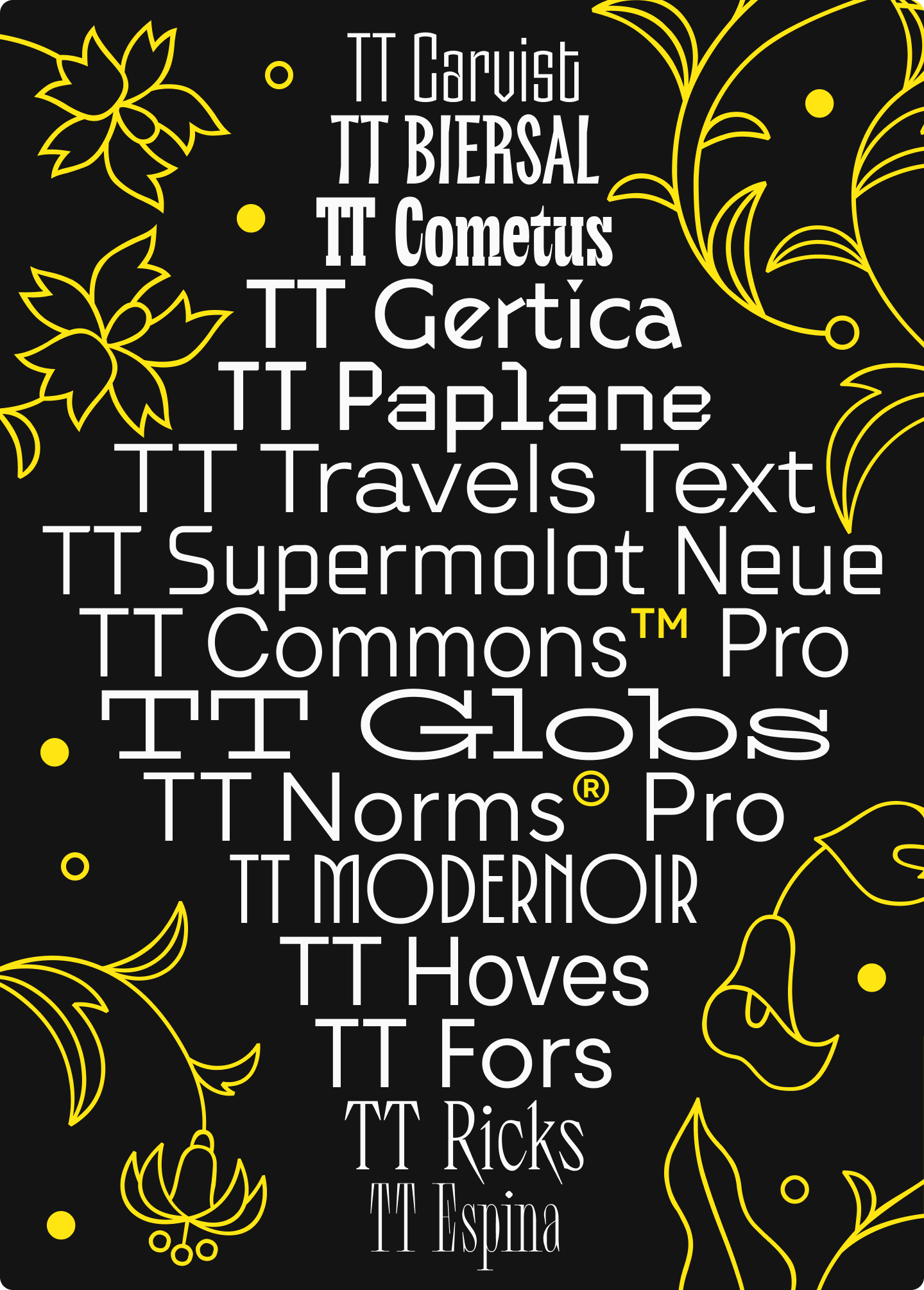
New Fonts
- TT Carvist is a fashionable experimental sans serif with additional slender proportions and a gothic temper
- TT Travels Textual content is a fashionable and versatile geometric sans serif with broad proportions
- TT Paplane is an experimental squared-looking show sans serif that appears prefer it’s folded from a paper strip
- TT Modernoir is an experimental show sans serif with dynamic proportions, impressed by Twentieth-century French typography and noir movie aesthetics
- TT Biersal is an experimental show sans serif with a free-spirited, playful, and adventurous nature, impressed by German posters from the Thirties
- TT Gertika is an experimental geometric sans serif with a dynamic character and a dancing rhythm
Up to date Fonts
- TT Supermolot Neue is an superior, modular sans serif with a futuristic temper. To make the font much more purposeful and versatile, we expanded the character set, added extra supported languages and OpenType options
- TT Commons™ Professional is a geometric sans serif, certainly one of the studio’s hottest fonts. With the replace, we expanded the character set, added new OpenType options and stylistic units, improved kerning and hinting
- TT Hoves Professional is certainly one of the studio’s bestsellers included in our core set of versatile fonts. We added a Mono subfamily, amplifying the font’s performance
- TT Norms® Professional is a purposeful geometric sans serif for aesthetic design decisions and TypeType studio’s bestseller. We expanded the character set, amplified the font’s performance, and added new stylistic units
- TT Fors is a geometric sans serif with a impartial persona and refined proportions. We added a new Condensed subfamily
Fonts with Cyrillic Assist
- TT Espina is a show Antiqua with expressive serifs. We added assist of Cyrillic alphabets, fully revised kerning, improved hinting, added new OpenType options and stylistic units, expanded the character set
- TT Ricks is an expressive serif with an edgy temperament. We added assist of Cyrillic alphabets, expanded the character set, up to date kerning and hinting, added new OpenType options and stylistic units
- TT Globs is a fashionable, wide-proportioned slab serif with a pleasant nature and summer season vibes. We added assist of Cyrillic alphabets, considerably expanded the character set and performance
- TT Cometus is a fashionable slab serif. We added assist of Cyrillic alphabets, considerably expanded the character set and improved the font’s technical points
Plans for 2025
- Launch new fonts: a sans serif, a high-contrast sans, and an Previous Model serif
- Replace: TT Ramillas, TT Interphases Professional, TT Fellows, TT Fors, TT Ricordi Greto, TT Modernoir, TT Ricordi Allegria, TT Biersal, TT Phobos, TT Barrels, TT Bluescreens
- Give a common replace to our bestsellers: TT Norms® Professional, TT Commons™ Professional
- Add Arabic script assist to our bestsellers: TT Norms® Professional, TT Commons™ Professional
Awards & Recognition
- Purple Dot Award: our enchanting TT Espina obtained the «Better of the Greatest» award
- Granshan Award: TT Espina gained gold, and our versatile serif TT Norms® Professional Serif gained bronze
- MUSE Award: IvI Sans Show gained gold, the cosmic TT Cometus gained silver, the transformer font TT Neoris gained silver
- Indigo Award: TT Neoris gained gold, TT Cometus gained silver, IvI Sans Show gained gold and silver
How Our Web site Modified
- We launched web site variations in German and Spanish
- Created a Font Dictionary the place yow will discover definitions of key typographic phrases
- Added an on-line procuring cart to the TypeType retailer, making purchases much more handy
- The location now masses sooner
New Weblog Articles by TypeType
- “Our Golden Font: How We Crafted the Very best Neo-Grotesque TT Neoris.” A deep dive into crafting our next-generation Neo-Grotesque: from preliminary analysis and person suggestions to the advantageous particulars of character design
- Continuation of the “UniversiTTy” article sequence:
– Lesson 6. Designing Primary Latin Characters. Introduction
Getting into New Platforms
Conclusion